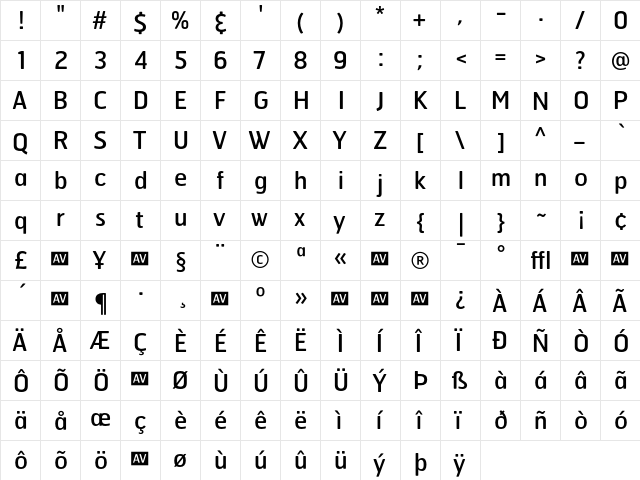
Hermes Regular
Design Context for Hermes Typeface
Hermes takes a measured approach to typography — its balanced proportions and neutral character make it a reliable workhorse for both digital and print work.
Pro Tip: Pair Hermes with a font of contrasting weight or personality to build a more expressive typographic hierarchy.